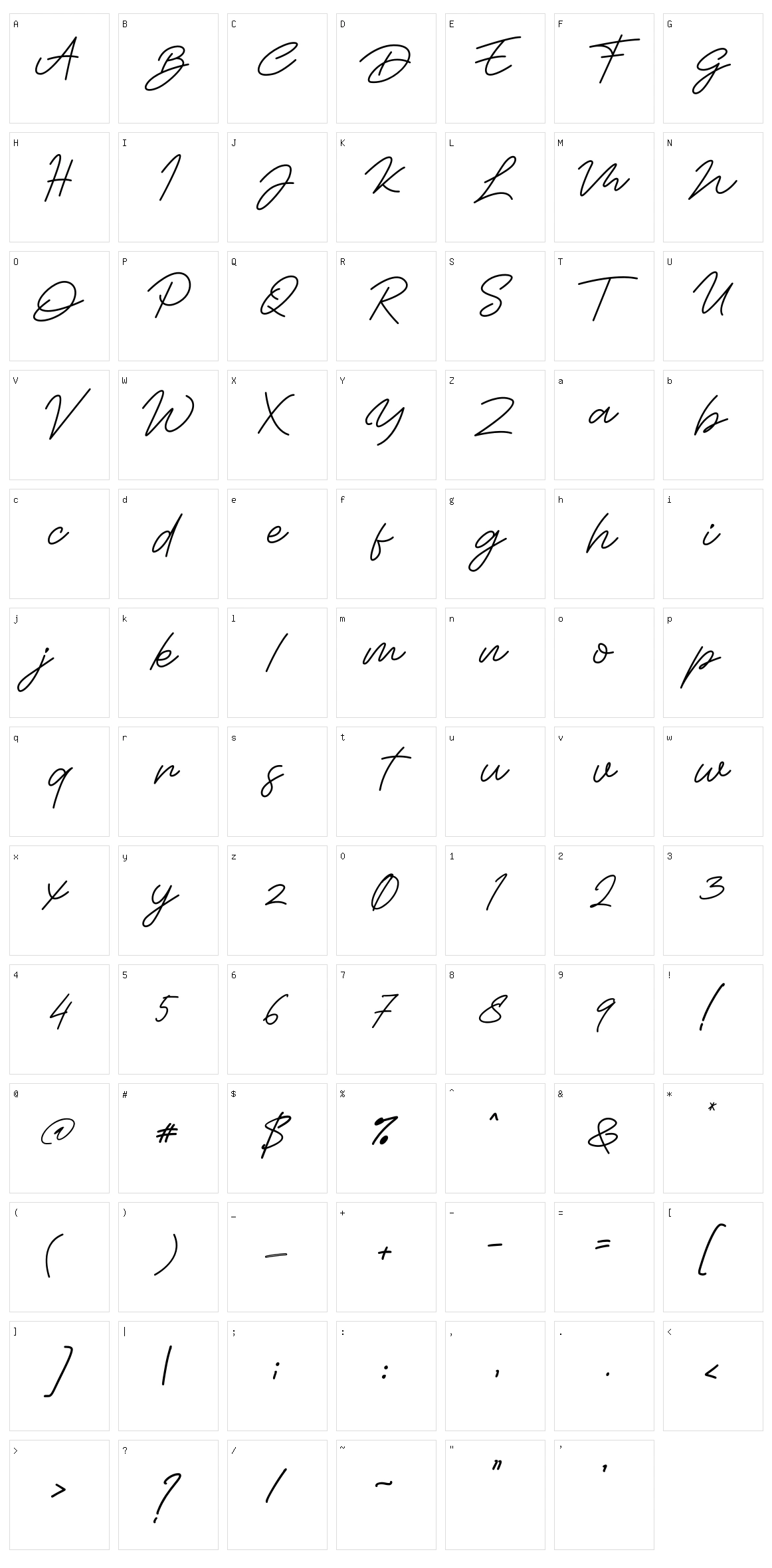
The free font Wanita Cantik is carefully designed by Ryan Rivaldo Vierra, showcasing a thoughtful balance of creativity and usability and falls under the Script font style. When you download the ZIP file, it contains only 729.63 KB of font files, making it lightweight and quick to download. Please review the license details below to understand permitted usage and distribution rights. If license information is not available, we recommend using this font for personal projects only or contacting the author directly for commercial usage permissions.